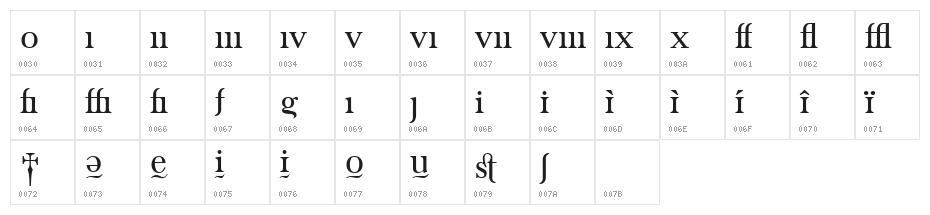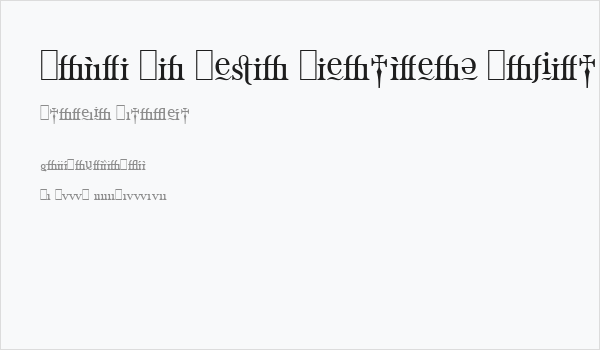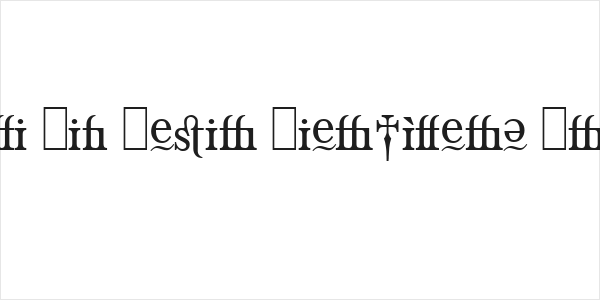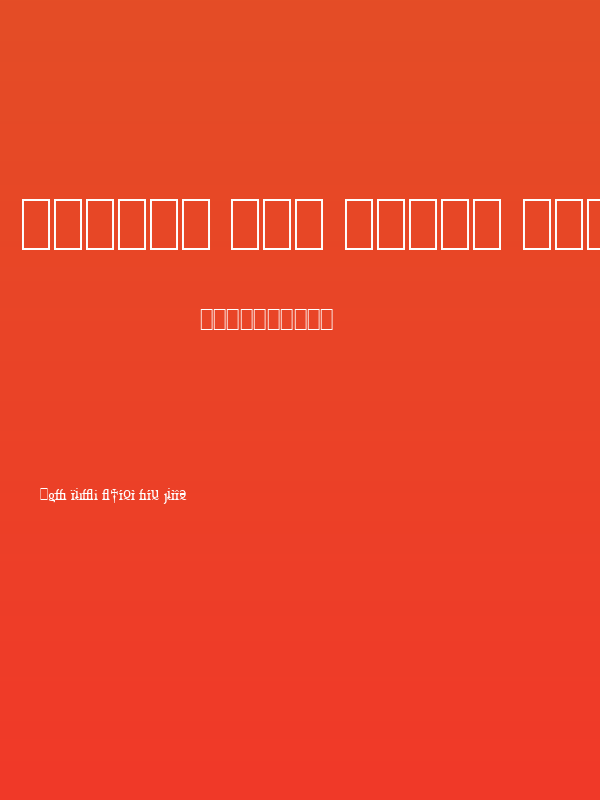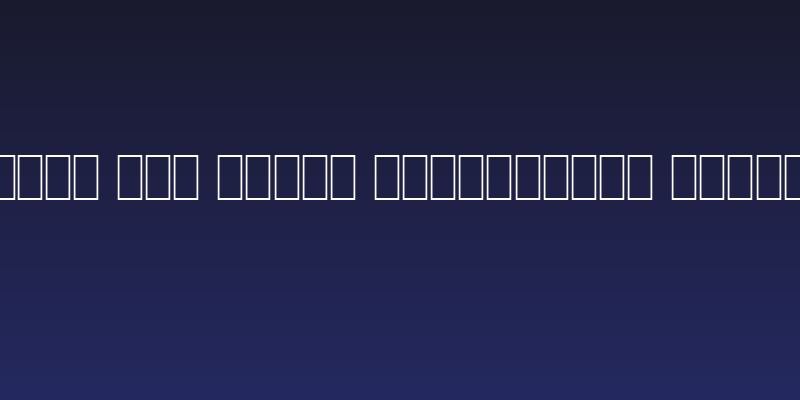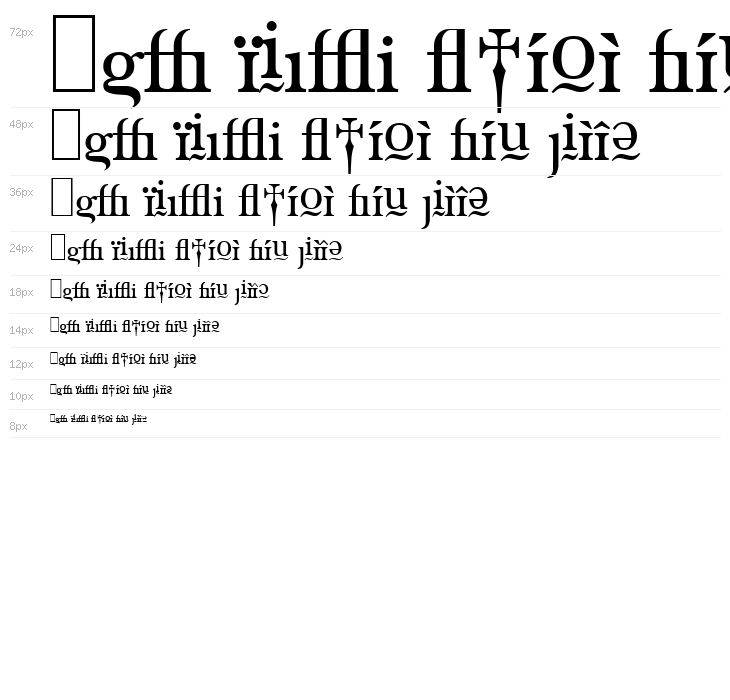
Denial Old Style Alternates Regular Font
Denial Old Style Alternates Regular Description
This font presents a unique blend of traditional and modern elements, characterized by its distinct old-style serif features. The letters exhibit a classic elegance with a touch of artistic flair, evident in the alternate characters that add a decorative twist. The strokes are well-defined, with a moderate contrast between thick and thin lines, giving the font a sophisticated yet approachable appearance. The serifs are pronounced, enhancing the readability while maintaining a stylish aesthetic. This font is versatile, suitable for projects that require a touch of class and tradition.
| Proposed Projects | Ideal for book covers, editorial design, branding, and invitations. |